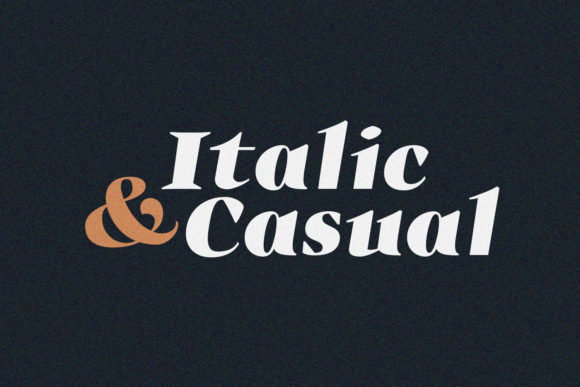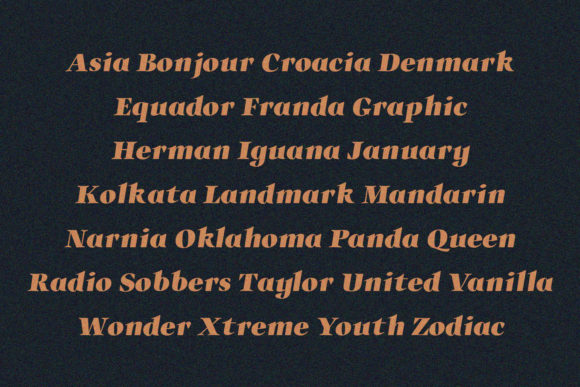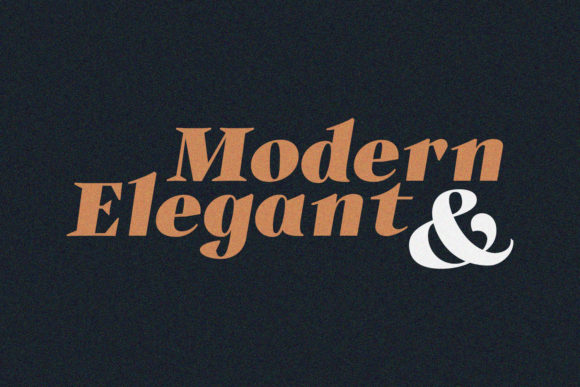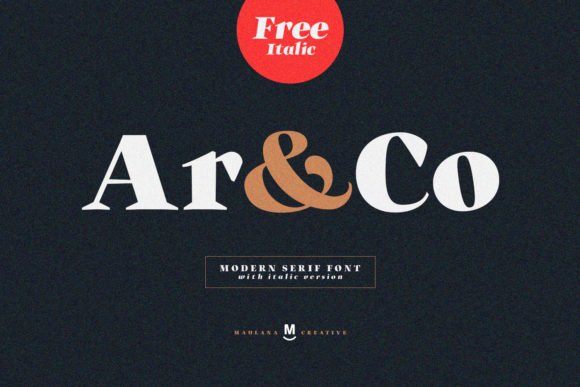
Introduction to Ar and Co Font
Ar and Co is a simple, yet charming serif font with a bold feel.
It will turn any design project into a stand out .
Why Choose Ar and Co Font?